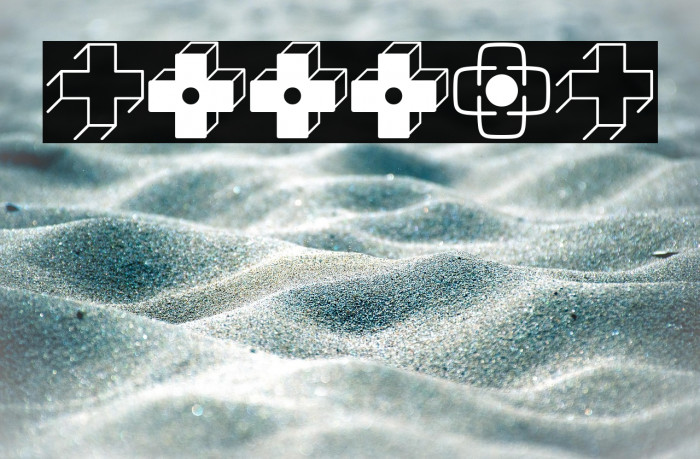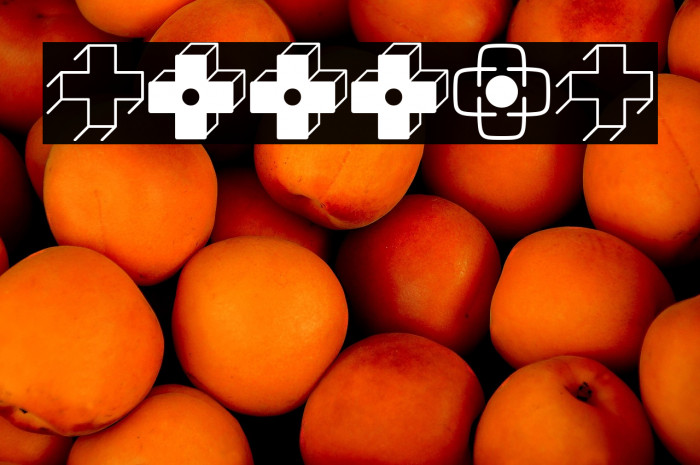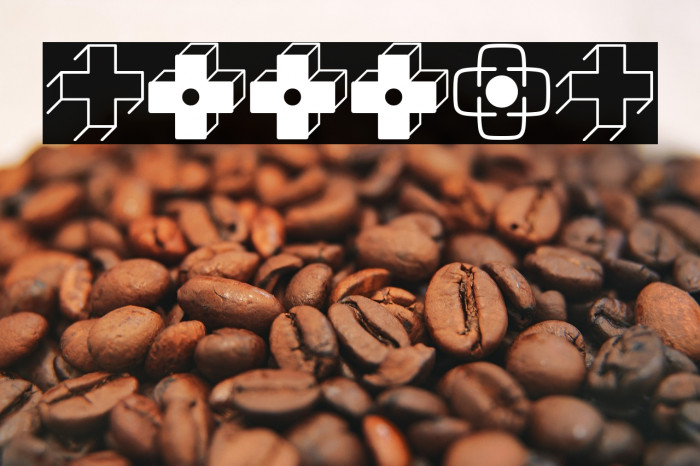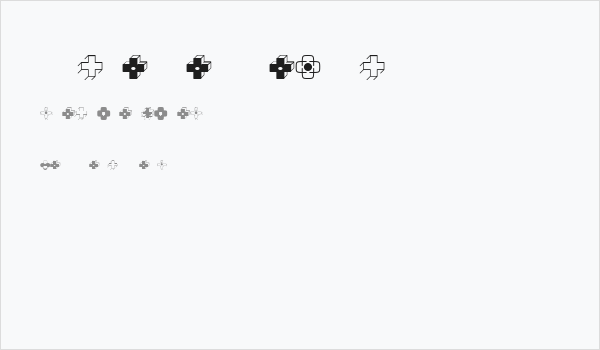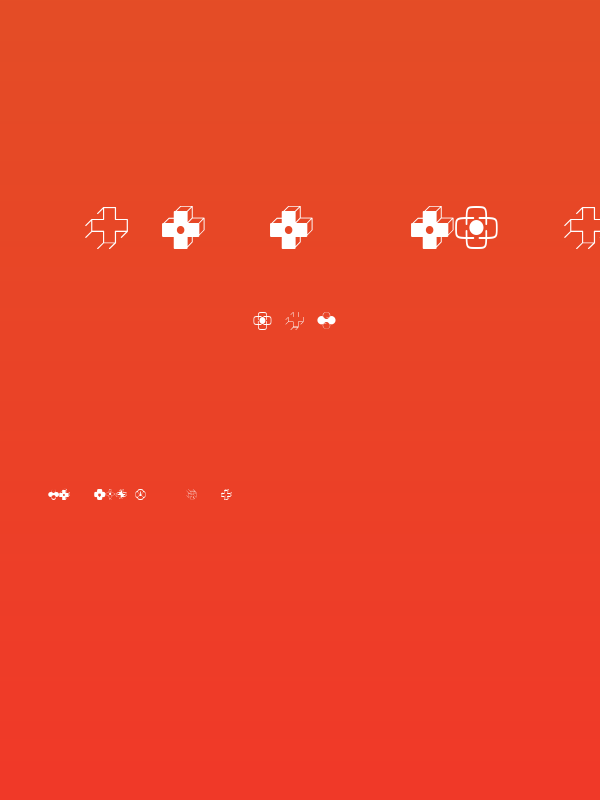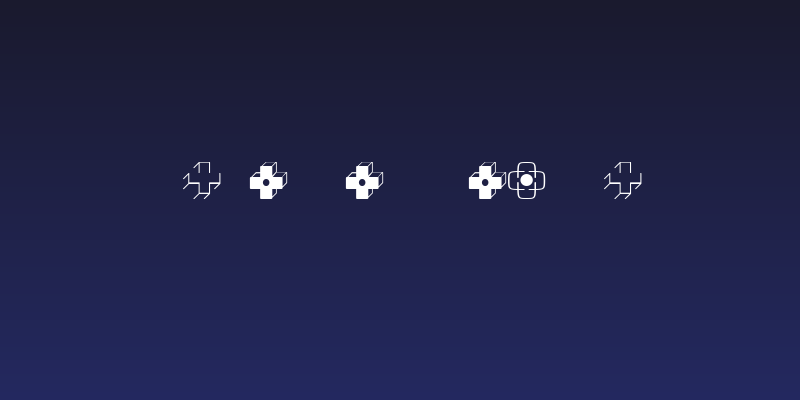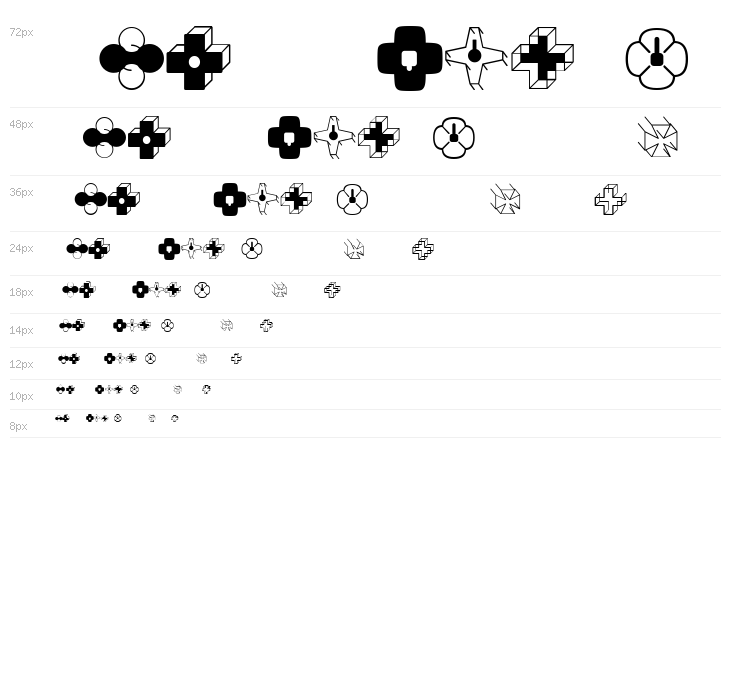
Traverser Regular Font
Traverser Regular Description
This design features a series of intricate geometric shapes that combine elements of crosses, circles, and angular lines. Each character is a unique combination of these elements, creating a visually engaging pattern that is both modern and abstract. The use of both filled and outlined shapes adds depth and contrast, making the design stand out. The repetition of certain motifs creates a sense of rhythm and continuity, while the variation in shape and form keeps it dynamic and interesting. This design is not a traditional font but rather a decorative pattern that could be used for artistic or design purposes.
| Use Case | Decorative elements |
| Proposed Projects | Ideal for use in graphic design projects, such as creating borders, backgrounds, or decorative elements in digital and print media. |